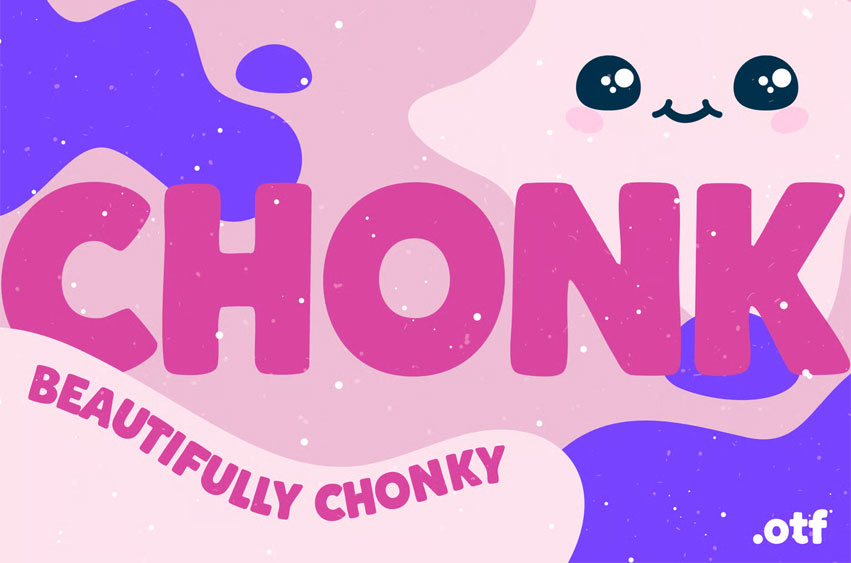
Chonk Font is a chonky, thick, sans-serif display font perfect for print and packaging design. It currently comes with support for Uppercase, Lowercase, Numbers &Punctuation, Multilingual support, and 4 different versions, alongside a selection of standard ligatures (notably CH and KE)